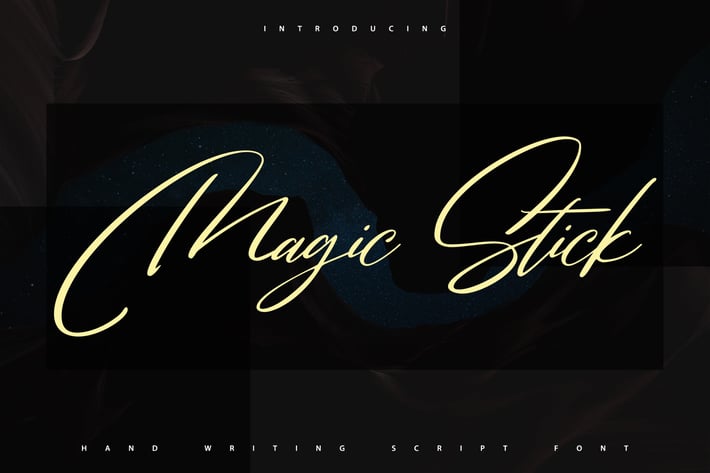
MagicStick | Handwriting Script Font
MagicStick | Handwriting Script Font with a calligraphy style, So beautiful on invitation like greeting cards, branding materials, business cards, quotes, posters, and more!